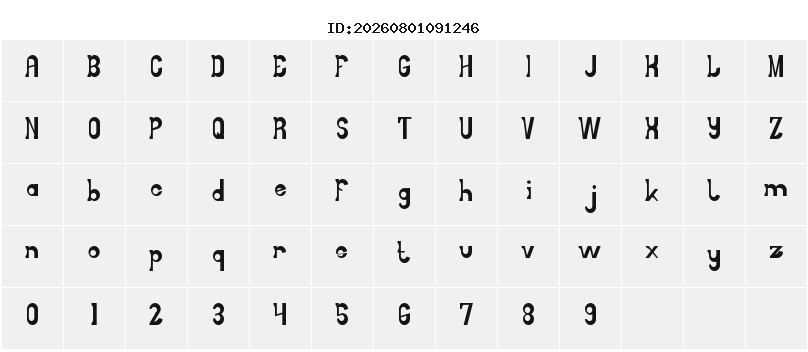
• Font Name: LITTLE COWBOY
About LITTLE COWBOY.ttf
LITTLE COWBOY.ttf is a modern, elegant sans-serif font designed for ultimate readability and visual harmony. Perfect for branding, headlines, web design, and print materials.